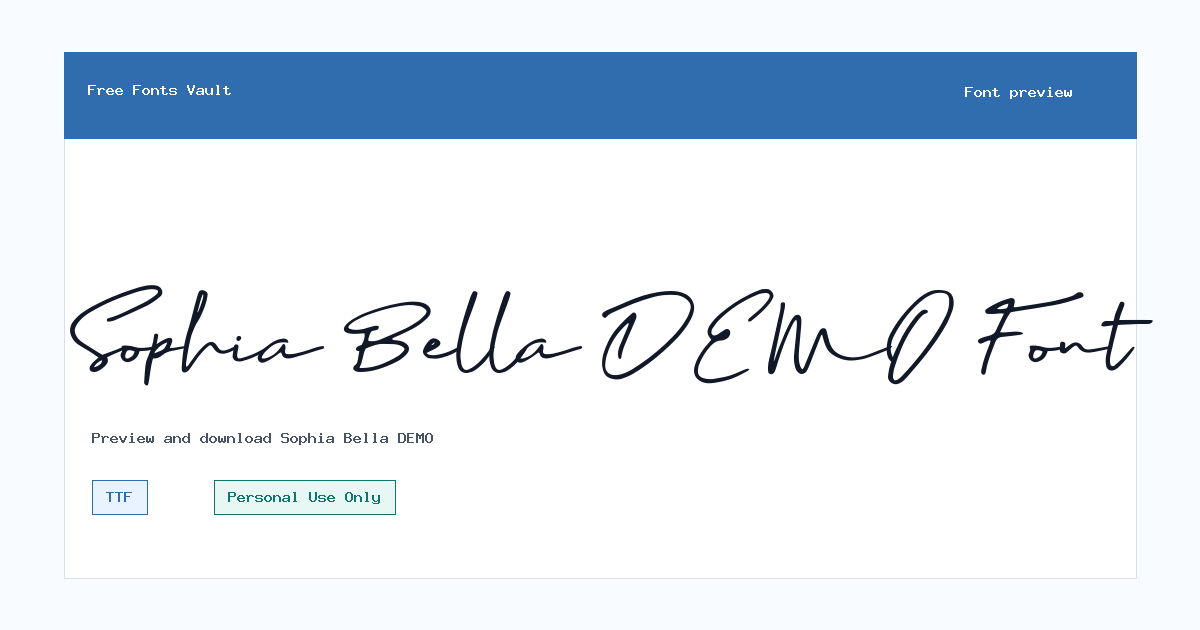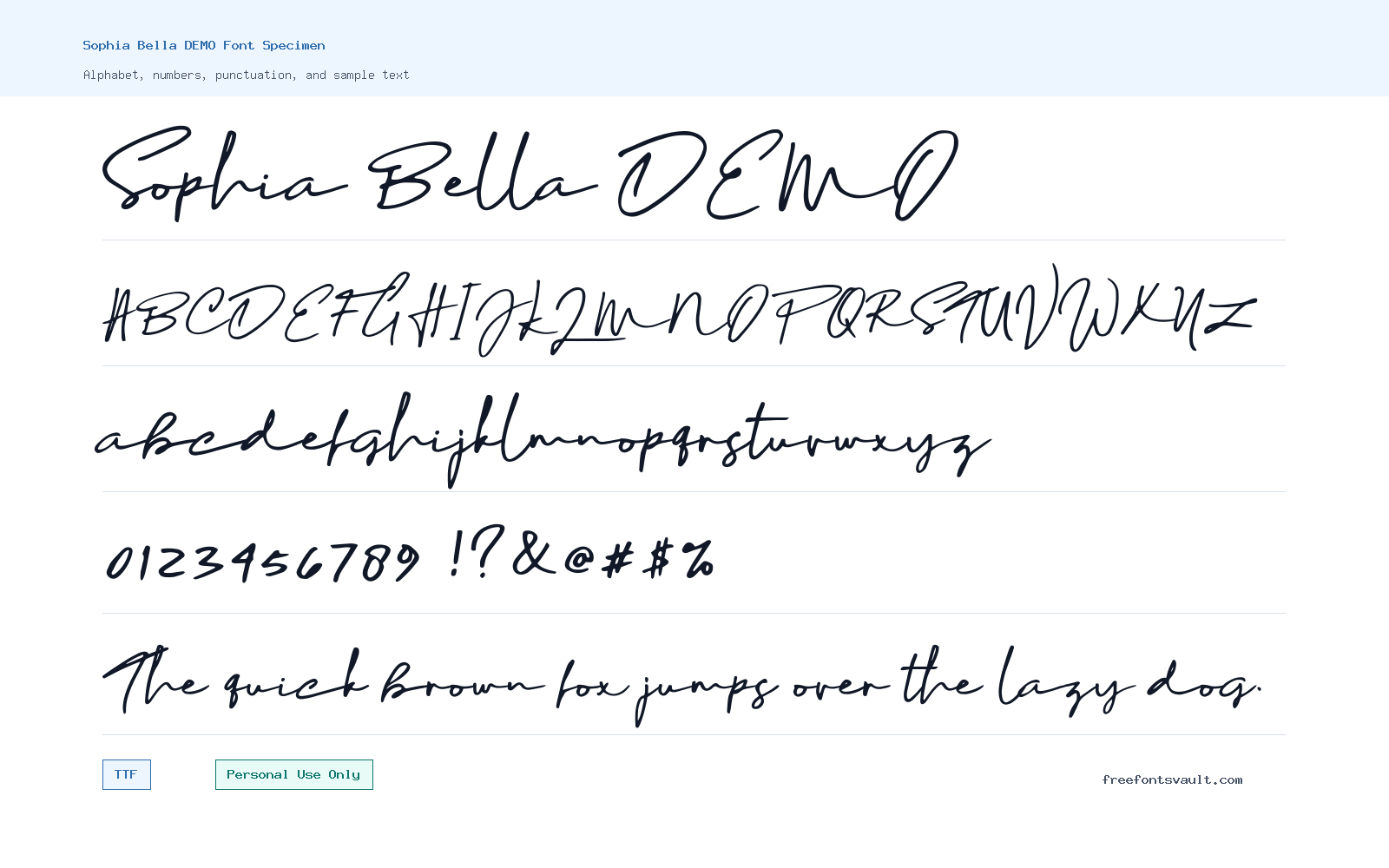
Sophia Bella DEMO
Sophia Bella DEMO font.
Sophia Bella DEMO is a signature-style script font with connected, handwritten letterforms. It works best when you need a decorative wordmark or short line of text, not long paragraphs.
About Sophia Bella DEMO
Sophia Bella DEMO has a flowing cursive look with a light personal feel. The regular TTF file is suited to display use, where the shape of each word matters more than dense reading. Try it for names, invitation headings, greeting card text, social graphics, mood boards, and other short pieces where a script font can stand on its own.
Because this is a demo/personal-use font, test it carefully before designing final artwork. Preview your exact words, check capital letters beside lowercase letters, and look at spacing between connected characters. Script fonts can look elegant at larger sizes, but they may lose clarity in small captions, menu text, or body copy. Pair it with a plain serif or sans serif if you need supporting text.
- Signature-style connected script letterforms
- Decorative display style for short text
- Wedding invitation names or headings
- Greeting cards and personal stationery
- Personal branding mockups
- Quote graphics and social posts
- Decorative titles for non-commercial projects
The font is credited to Suandana I Pande Made. Some external listings also associate the release with madeDeduk.
Use Sophia Bella DEMO at larger sizes and keep the text short. If a word contains many loops or repeating letters, adjust spacing or try alternate wording so the script remains readable. Sophia Bella DEMO should be tested with the real names or phrases in your layout. Script-style fonts can change noticeably from one letter combination to another, so compare a few sizes and keep long text in a simpler companion font.
What style of font is Sophia Bella DEMO?
It is a signature-style script font with connected, handwritten-looking letters.
Is this font good for body text?
No. It is better for names, headings, invitations, and short decorative text. Use a simpler font for paragraphs or small text.